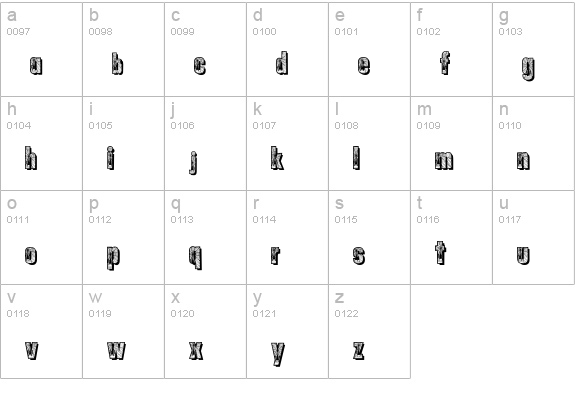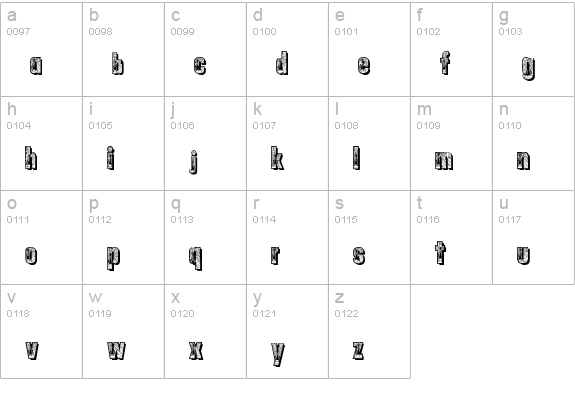
Spiders Font Details
Introducing Spiders font, a captivating and intricate typeface that will weave its way into your designs with its arachnid-inspired charm. This font is not for the faint-hearted, as its delicate yet hauntingly beautiful curves and lines mimic the intricate weaving of a spider's web. Spiders font is the perfect choice for those looking to add a touch of mystery and elegance to their projects. Whether you're designing a gothic-themed invitation, a spooky Halloween poster, or even a mesmerizing tattoo, this font will enchant and captivate your audience with its unique and mesmerizing appeal. But what sets Spiders font apart from other typefaces is not just its captivating design; it's also the fact that it is freely available to download at FontsMarket.com. Yes, you heard it right. Spiders font is completely free, allowing you to unleash your creativity without any cost constraints. With its extensive character set and various ligatures, Spiders font offers versatility and flexibility, making it suitable for a wide range of design projects. From logos and headlines to body text and branding materials, this font will effortlessly enhance the visual impact of your work. So why wait? Download Spiders font today at FontsMarket.com and set your creativity free. Let the intricacy and allure of this font create a web of visual delight that will leave a lasting impression on your audience. Don't miss out on this opportunity to add a touch of mystique to your designs without spending a penny. Embrace the elegance of Spiders font and let your imagination soar to new heights.